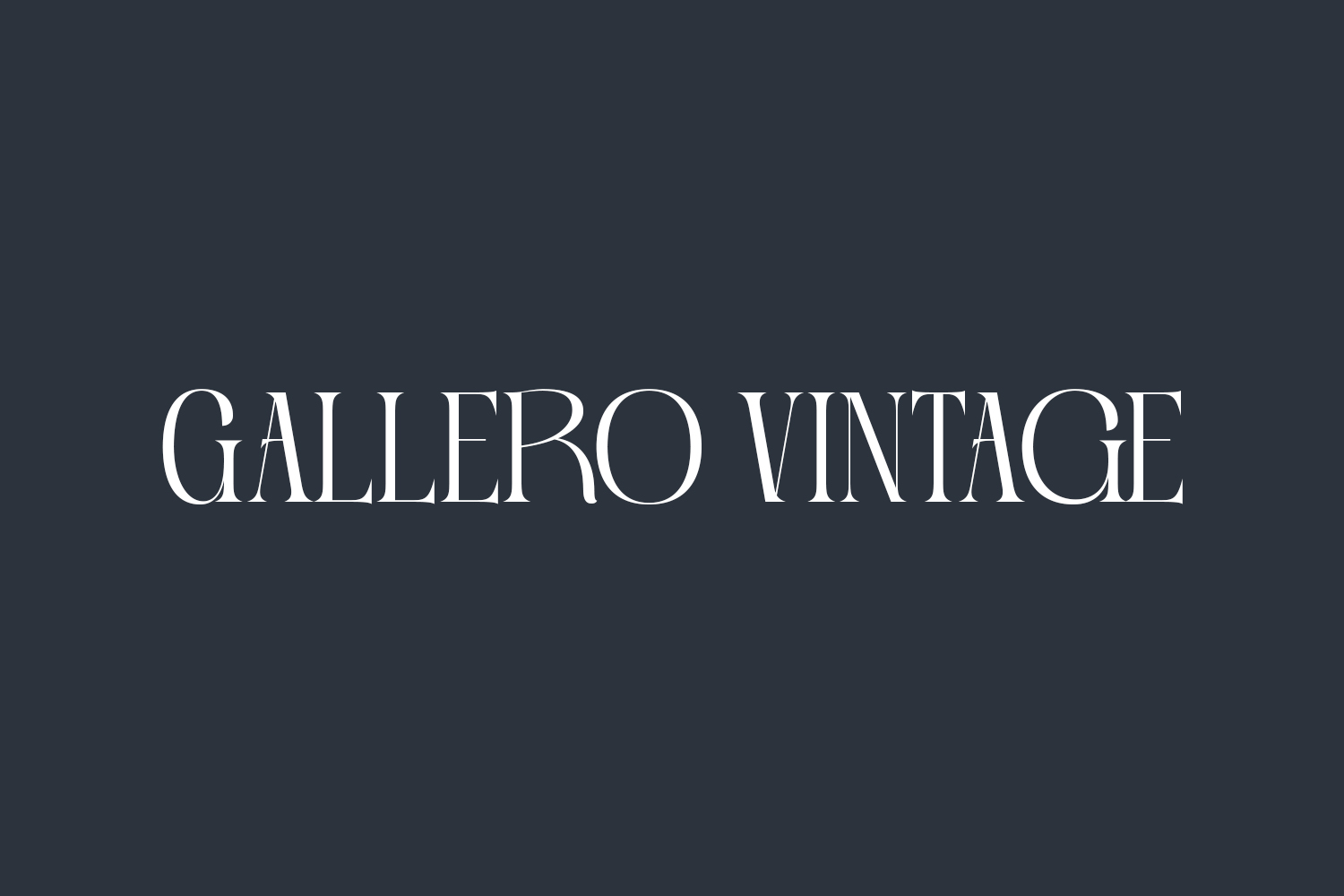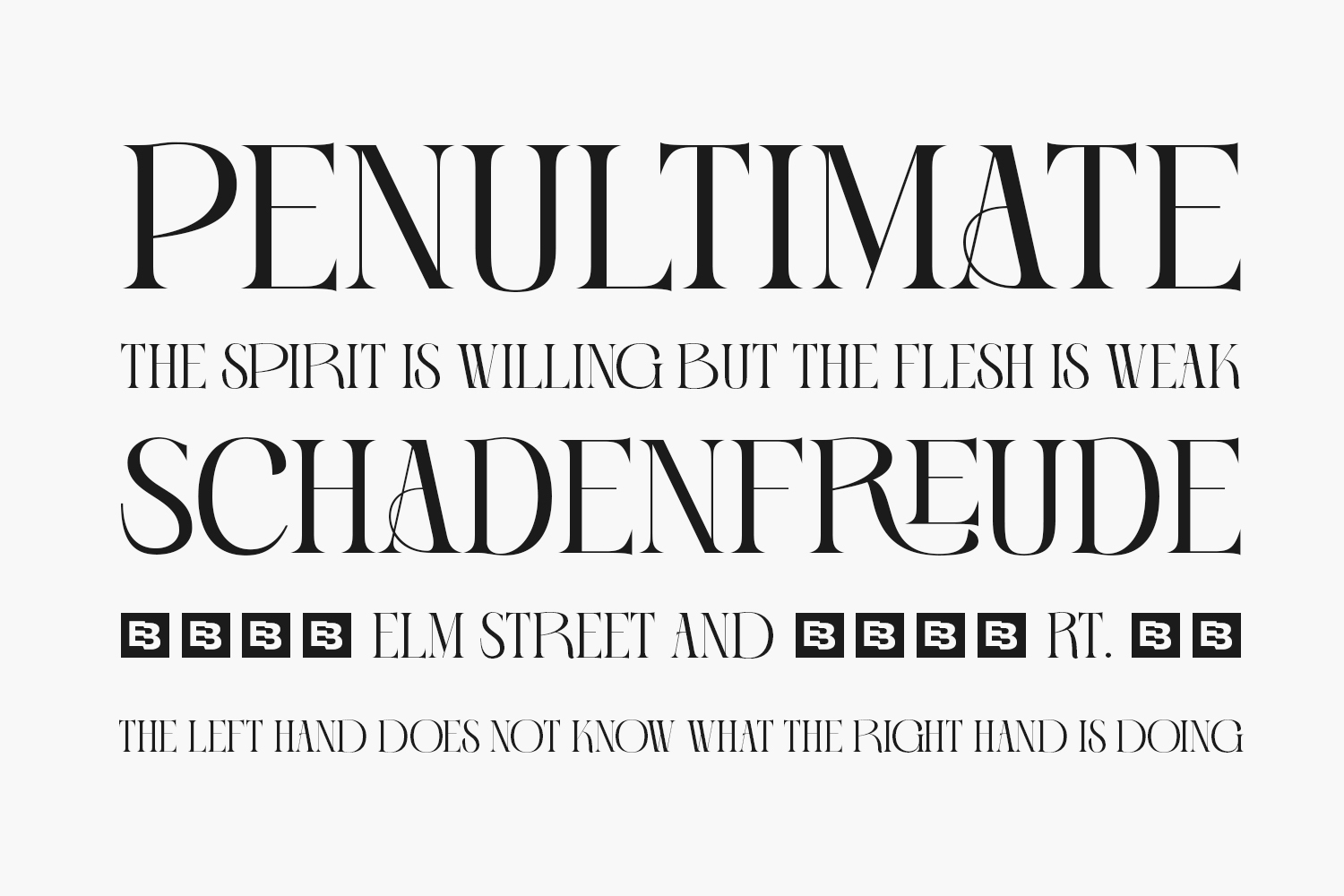
Embrace timeless elegance with Gallero Vintage Free Font, a captivating display font infused with Renaissance-inspired design elements. Elevate your branding, social media presence, advertisements, and product packaging with its exquisite typographic harmony. Download the font for free if you need it for personal use or purchase the full version for commercial use.